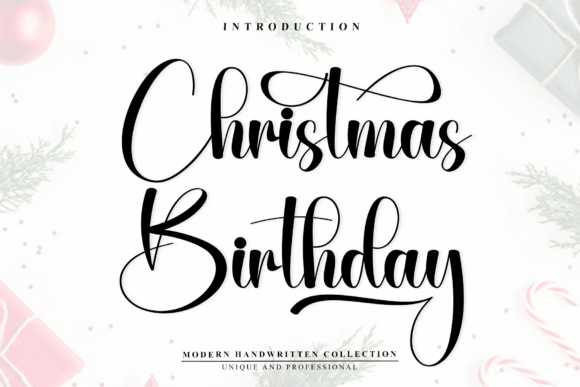
Introducing Christmas Birthday Font: A Luxurious Handwritten Script Font for the Holiday Season
Are you looking for a font that captures the essence of the holiday season? Do you want to add a touch of elegance and sophistication to your designs? Look no further than Christmas Birthday Font, a luxurious handwritten script font that combines calligraphic grace with whimsical elegance.
What is Christmas Birthday Font?
Christmas Birthday Font is a beautiful, high-end font that is perfect for designers and crafters who want to create stunning holiday-themed designs. This font features flowing swashes, delicate ligatures, and refined letterforms that evoke a sense of seasonal enchantment. With its high-contrast strokes and fluid curves, Christmas Birthday Font brings a romantic, decorative flair to any design.
Key Features of Christmas Birthday Font
• Handwritten Script Font: Christmas Birthday Font is a handwritten script font that mimics the fluidity and elegance of calligraphy.
• High-Contrast Strokes: The font features high-contrast strokes that add depth and dimension to your designs.
• Flowing Swashes: Christmas Birthday Font includes flowing swashes that can be used to add a touch of elegance to your designs.
• Delicate Ligatures: The font features delicate ligatures that add a touch of sophistication to your designs.
Use Cases for Christmas Birthday Font
Christmas Birthday Font is a versatile font that can be used for a variety of design projects, including:
• Holiday Cards: Create stunning holiday cards that will impress your friends and family.
• Wedding Invitations: Add a touch of elegance to your wedding invitations with Christmas Birthday Font.
• Premium Packaging: Use Christmas Birthday Font to create premium packaging that stands out from the crowd.
• Branding: Add a touch of sophistication to your brand with Christmas Birthday Font.
• Editorial Headlines: Use Christmas Birthday Font to create eye-catching editorial headlines.
Why Choose Christmas Birthday Font?
There are many reasons why you should choose Christmas Birthday Font for your design projects. Here are a few:
• Elegance and Sophistication: Christmas Birthday Font adds a touch of elegance and sophistication to any design.
• Legibility: Despite its ornate nature, Christmas Birthday Font is highly legible, making it perfect for use in a variety of design projects.
• Versatility: Christmas Birthday Font can be used for a wide range of design projects, from holiday cards to premium packaging.
• Emotional Connection: Christmas Birthday Font has a way of evoking emotions and creating a connection with the viewer.
Tips for Using Christmas Birthday Font
Here are a few tips for using Christmas Birthday Font in your design projects:
• Use it Sparingly: While Christmas Birthday Font is beautiful, it can be overwhelming if used too much. Use it sparingly to add a touch of elegance to your designs.
• Pair it with Other Fonts: Christmas Birthday Font pairs well with other fonts, such as sans-serif fonts. Experiment with different pairings to find the one that works best for your design.
• Experiment with Colors: Christmas Birthday Font looks great in a variety of colors, from rich jewel tones to metallic colors. Experiment with different colors to find the one that works best for your design.
Font Name Christmas Birthday Font
Christmas Birthday Font is a luxurious handwritten script font that is perfect for designers and crafters who want to create stunning holiday-themed designs. With its flowing swashes, delicate ligatures, and refined letterforms, Christmas Birthday Font adds a touch of elegance and sophistication to any design. Whether you’re creating holiday cards, wedding invitations, or premium packaging, Christmas Birthday Font is the perfect choice.